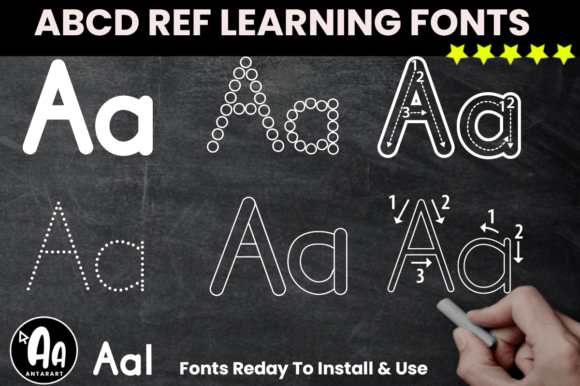
The Ultimate Guide to Abc Tracing Alphabets Font: A Creative Resource for Designers and Educators
As a designer, I’ve had my fair share of projects that required a unique and engaging font. One project that still stands out in my mind was when I was tasked with creating a set of alphabet tracing worksheets for a client. I spent hours scouring the internet for the perfect font, but nothing seemed quite right. That was until I stumbled upon the Abc Tracing Alphabets Font. ✨
A Personal Review: What I Love and What I Don’t
- ✅ Based on the D’Nealian Method US school, making it a great resource for teaching the print alphabet
- ✨ Perfect for creating engaging and interactive worksheets for kids
- 🖌️ High-quality font with clear and precise letterforms
- 📚 Great for educational projects, such as alphabet tracing, handwriting practice, and reading materials
The Not-So-Good Stuff
- 🤔 Limited font styles, which may not be suitable for all design projects
- ⚠️ Some users may find the font a bit too simplistic for their taste
The Story Behind Abc Tracing Alphabets Font
The Abc Tracing Alphabets Font was designed with the D’Nealian Method US school in mind. This method emphasizes the importance of proper handwriting techniques and provides a structured approach to teaching the alphabet. The font’s creator aimed to provide a high-quality, engaging font that would make learning fun and interactive.
| What is the Abc Tracing Alphabets Font based on? | The Abc Tracing Alphabets Font is based on the D’Nealian Method US school. |
| Is the Abc Tracing Alphabets Font suitable for all ages? | Yes, the font is designed to be engaging and interactive for kids, but it can also be used for adult projects, such as educational materials or creative designs. |